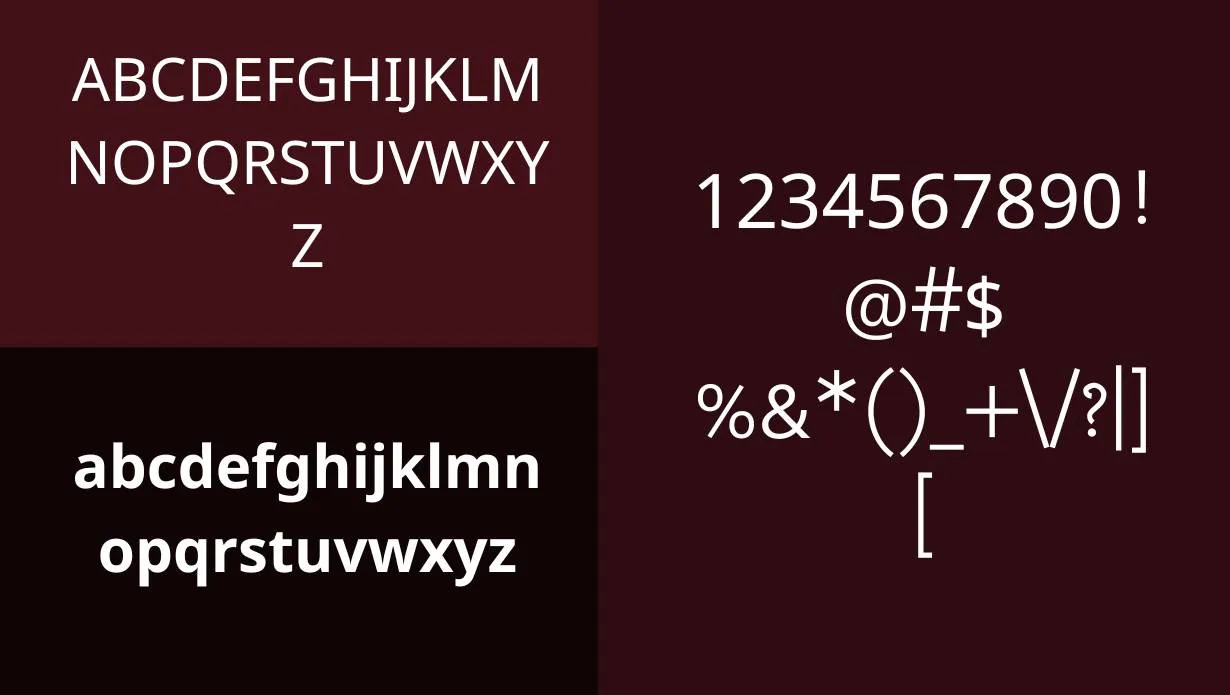
Siyam Rupali font is an artsy friend who loves adding a playful twist to your words. It’s like doodling in the margins, infusing your text with creativity and liveliness.
The weight of Siyam Rupali is light-hearted, adding a whimsical touch without being too heavy. Its width is dynamic, allowing for a bit of flair in the letterforms.
| Name | Siyam Rupali Font |
| Designer | Solaiman Karim |
This font is perfect for party invitations or casual notes, turning your words into a canvas of joyful expression.